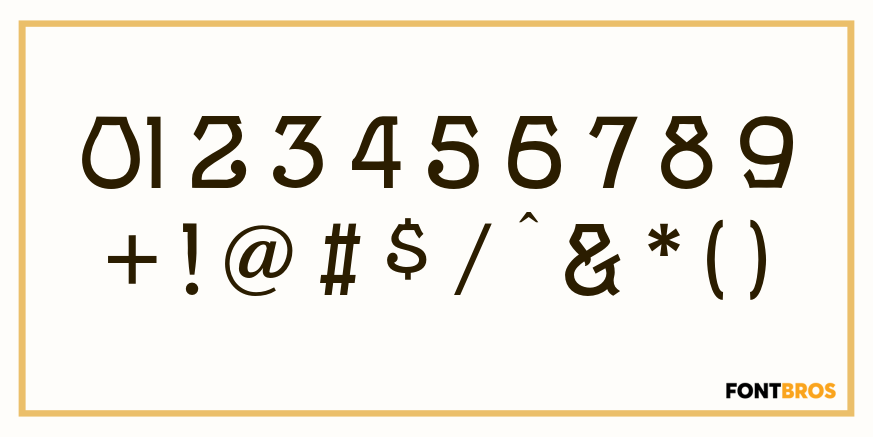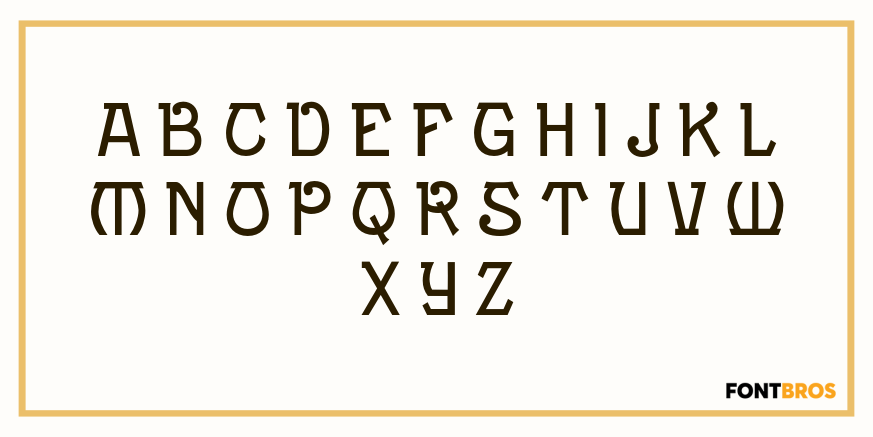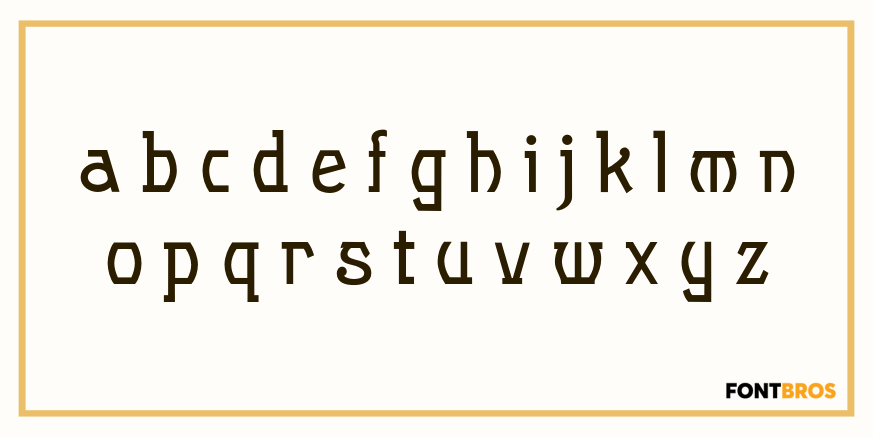
Fancy Dan
We had a dozen or so letters of this, picked up at the flea market in Vienna. The rest came from our imagination.
Fancy Dan includes 200 glyphs.
Fancy Dan by Solotype